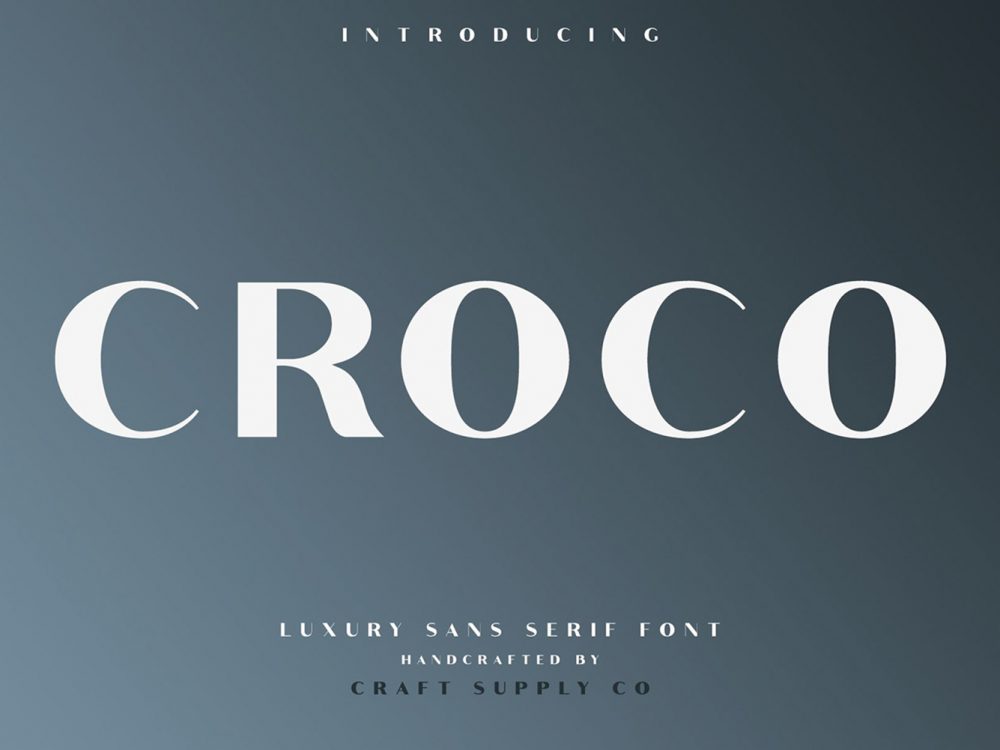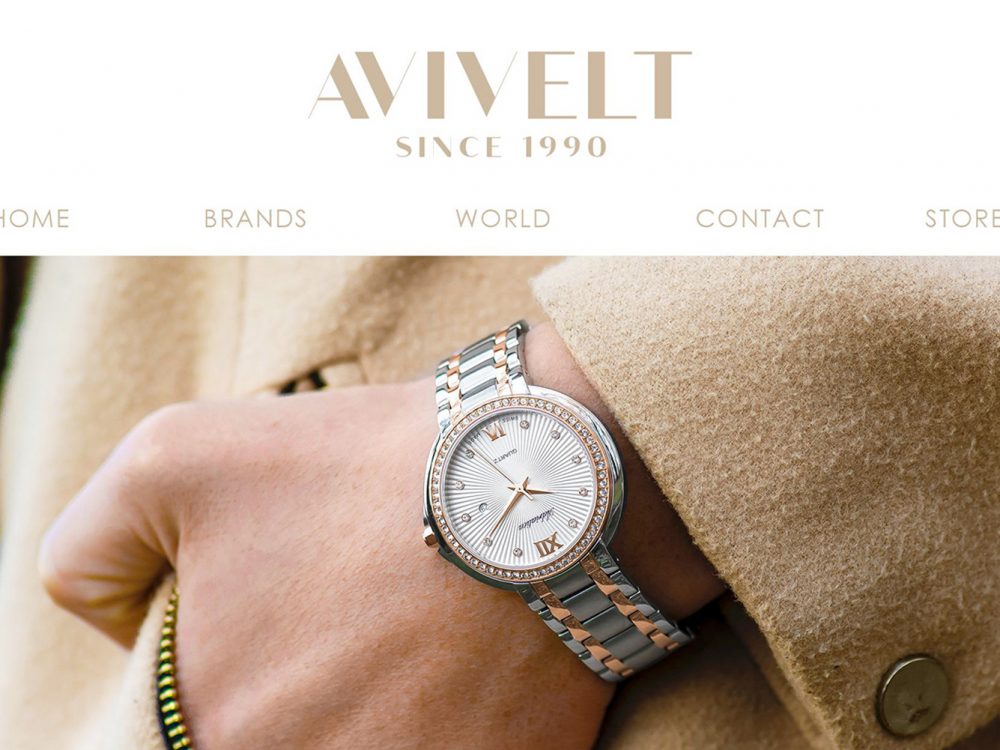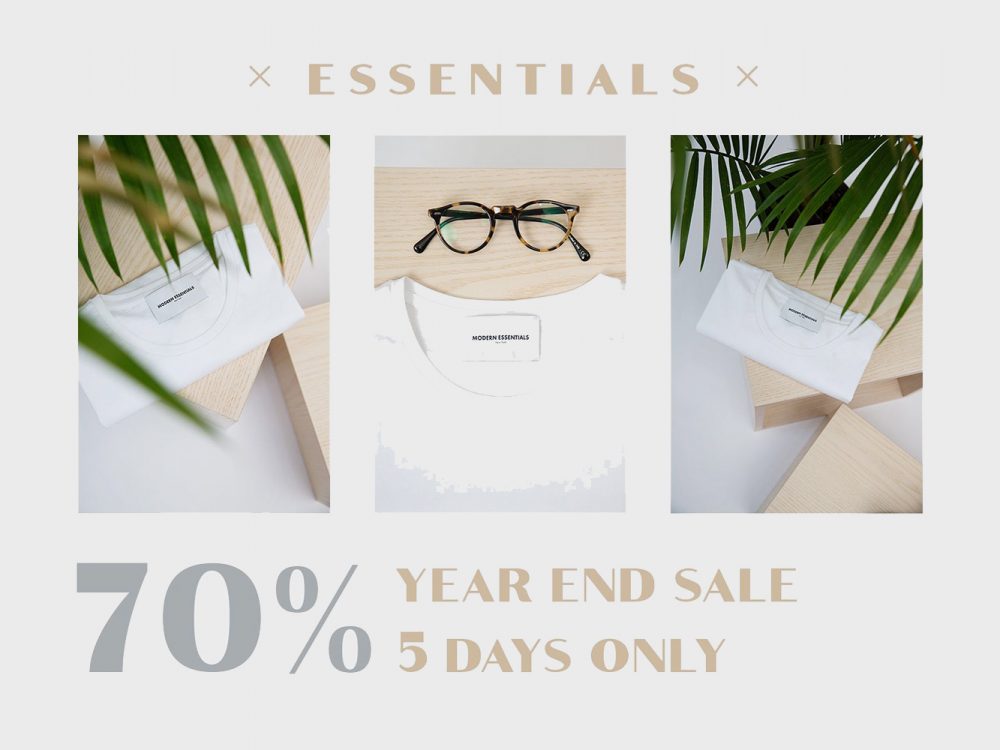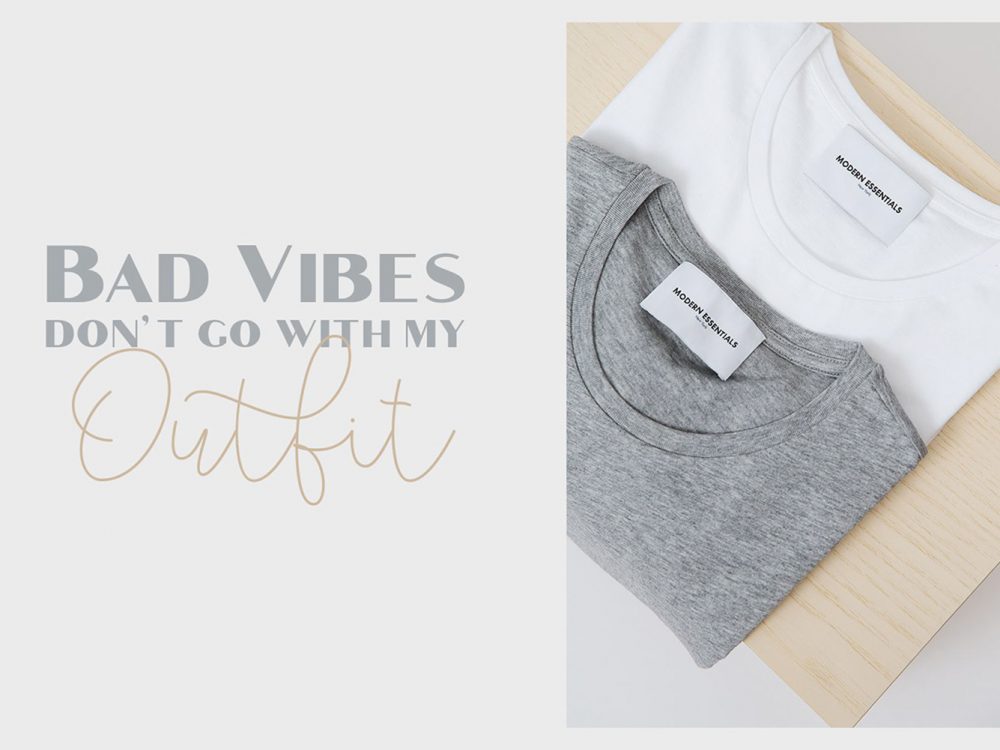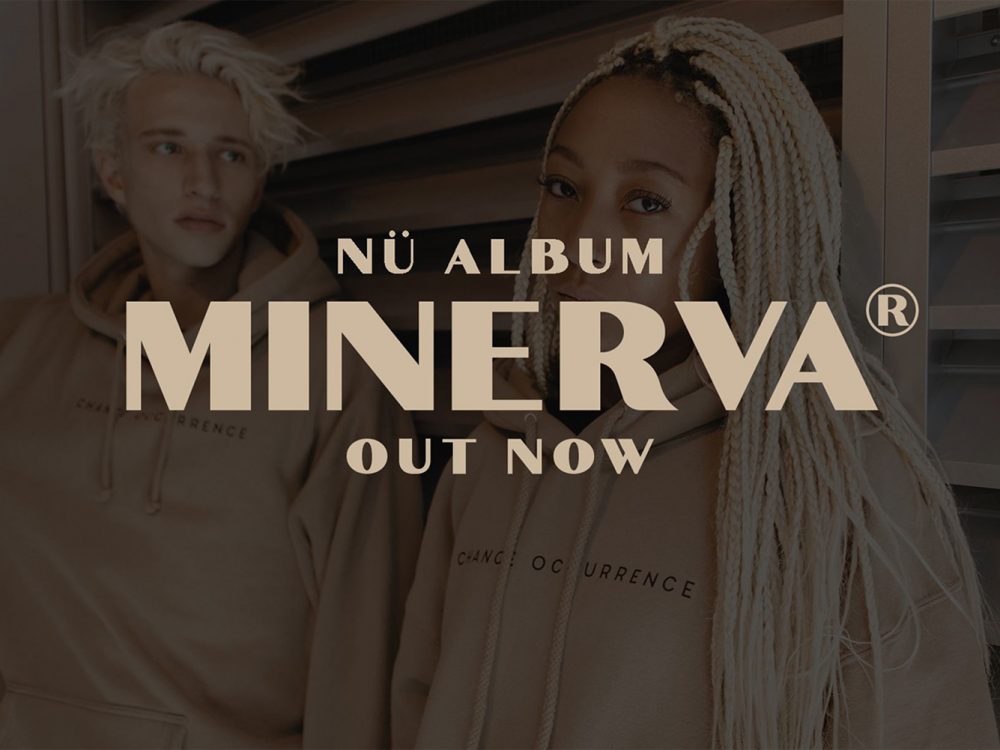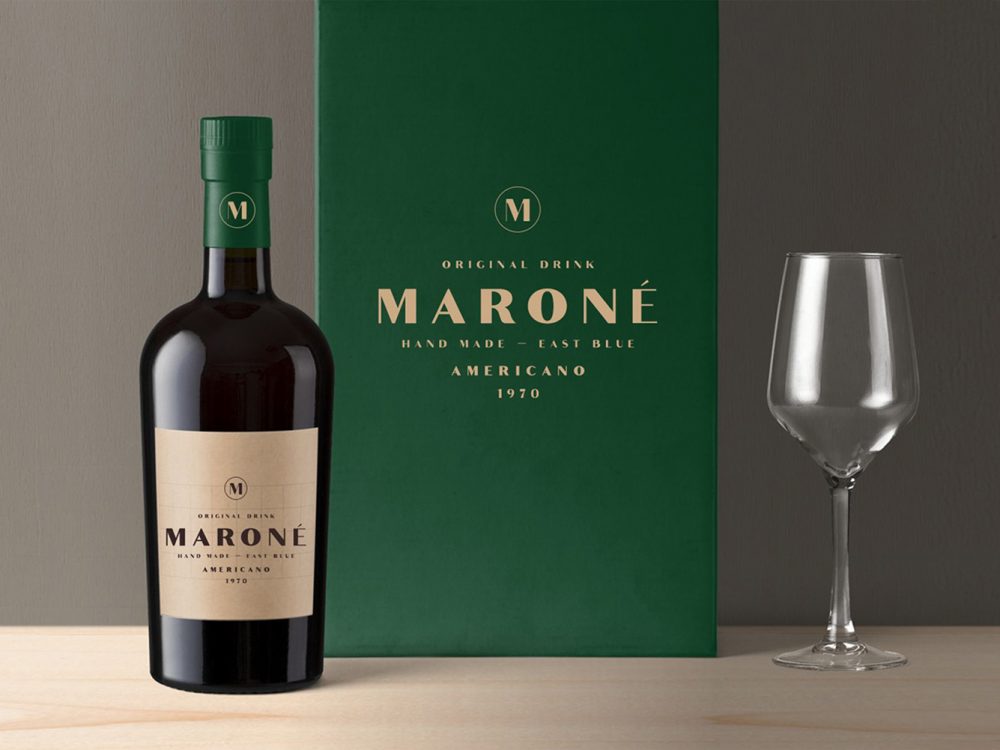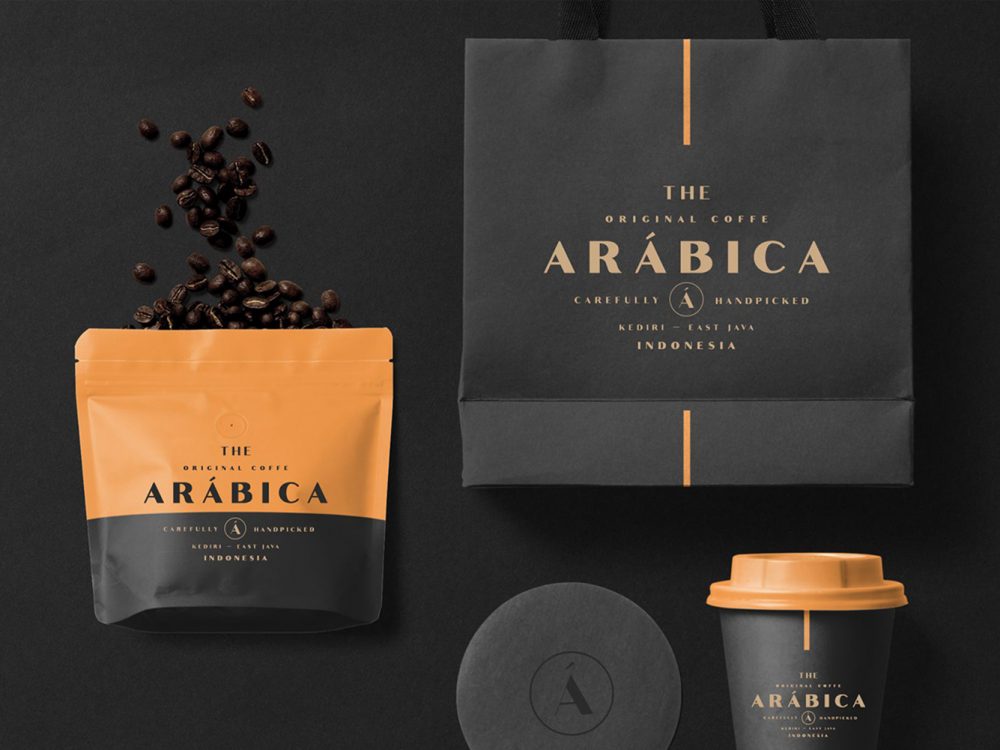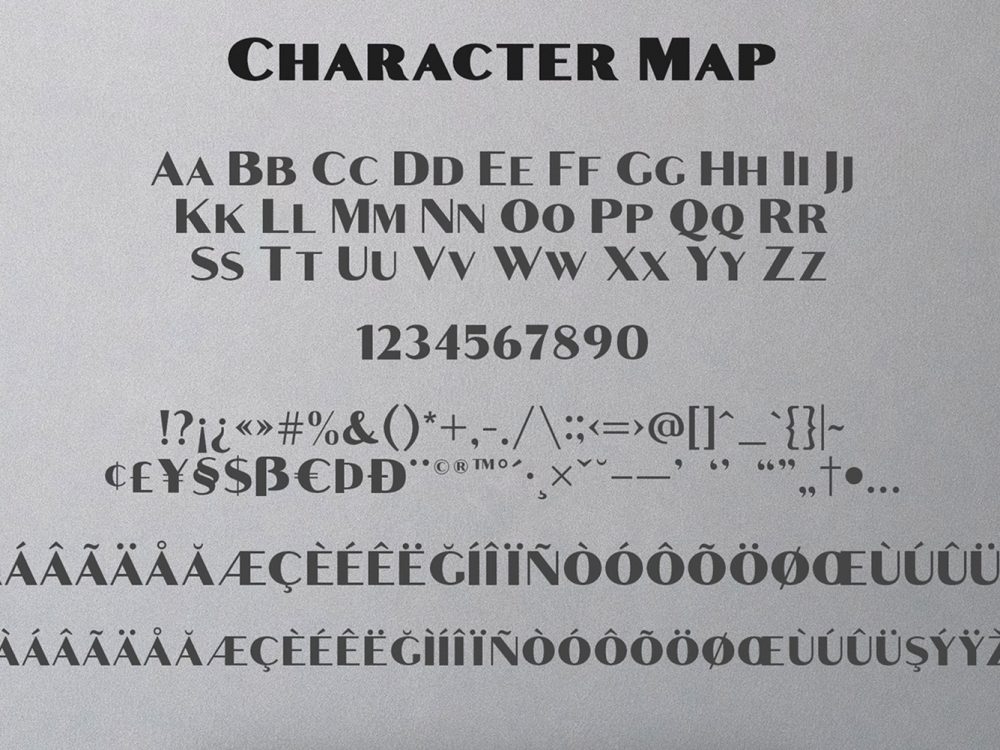
Croco Font Family Demo
Croco Font Family Demo is an interesting modern bold serif font family that is perfect for creating a variety of design projects. Use this family to create posters, invitations, cards, branding, flyers, prints, and more. If you wish to access more features and use them for commercial work please buy the full version.